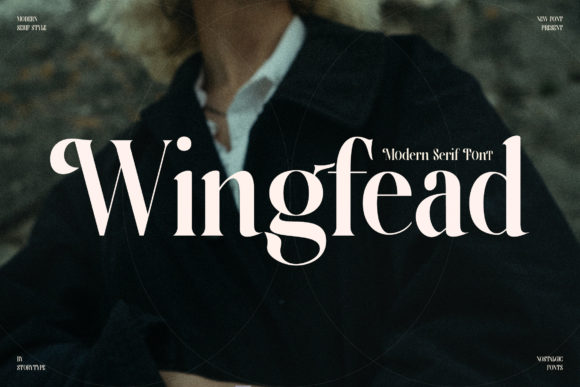
Introducing Wingfead, the epitome of elegance and sophistication in the realm of typography. This enchanting serif font, meticulously crafted by the renowned Storytype Studio, is adorned with bold and resplendent letterforms, making it the perfect choice for discerning individuals seeking to elevate their creative endeavors.
Wingfead's inherent charm lies in its versatility, effortlessly lending itself to a myriad of branding projects. Envision your logos imbued with a timeless allure, your t-shirt designs exuding a touch of distinction, and your creative products radiating with an air of exclusivity.
Crafted with meticulous attention to detail, Wingfead boasts PUA encoding, ensuring seamless access to its entire repertoire of glyphs and swashes. This empowers you to unleash your creativity without boundaries, adding intricate flourishes and captivating embellishments to your designs.
Indulge in the enchanting allure of Wingfead and elevate your creations to new heights of sophistication. Its bold strokes and graceful curves will infuse your projects with a touch of timeless elegance, captivating the hearts of your audience.